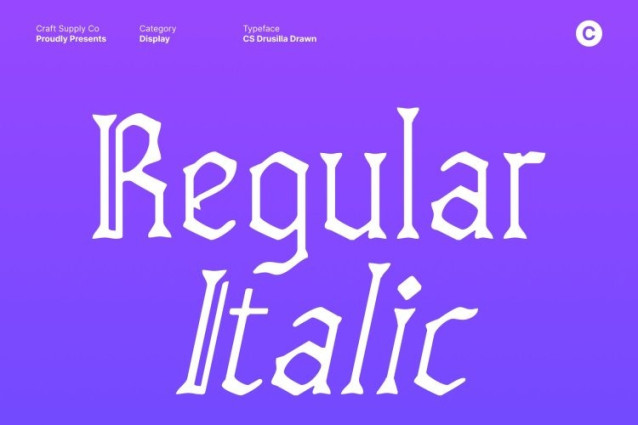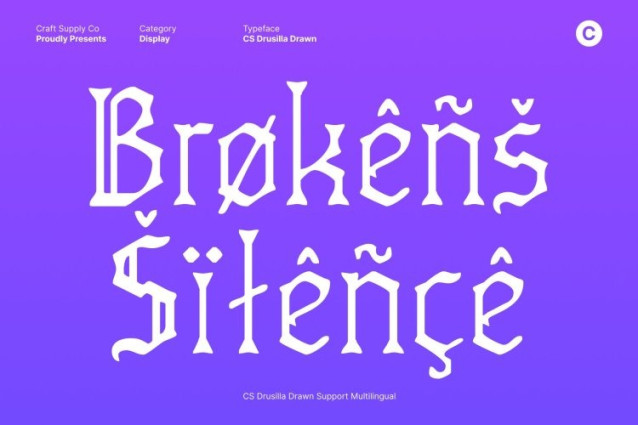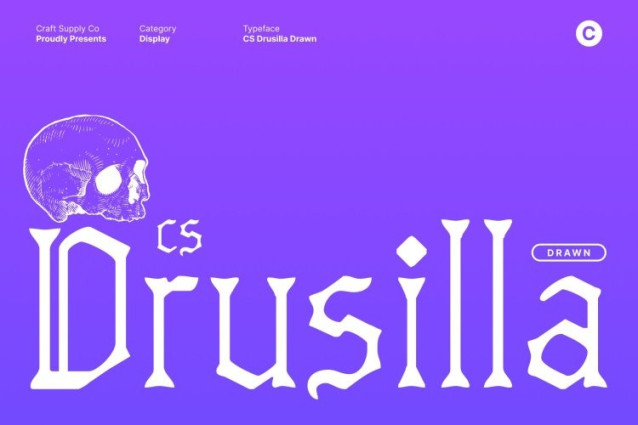
CS Drusilla Drawn Font – This is a decorative Blackletter display font that commands attention through bold, dramatic strokes and striking letterforms. Inspired by classic Gothic typography, it carries a strong sense of tradition, mystery, and authority. The sharp angles and heavy vertical emphasis give the font a powerful visual weight, making every word feel intense and expressive. This classic structure instantly evokes a historical atmosphere while still feeling visually captivating in modern design contexts.
Hand-Drawn Texture for Artistic Depth
What sets this font apart is its drawn texture, which introduces subtle imperfections and organic details into the rigid Blackletter form. This handmade effect softens the severity of the strokes, adding warmth, personality, and artistic depth. The texture enhances the font’s mysterious aura, making it feel more human, expressive, and visually rich rather than purely ornamental.
Classic Aesthetic with a Distinctive Edge
By blending traditional Blackletter construction with a hand-drawn finish, this font achieves a balance between classic heritage and unique character. It feels timeless yet distinctive, ideal for projects that want to reference history while standing out with a bold, artistic identity.
Ideal for Posters, Book Covers, and Branding
This font is perfect for book covers, dramatic posters, album artwork, logos, and branding that demand a strong, memorable impression. Its bold presence and artistic texture help create designs that feel iconic, mysterious, and full of character.